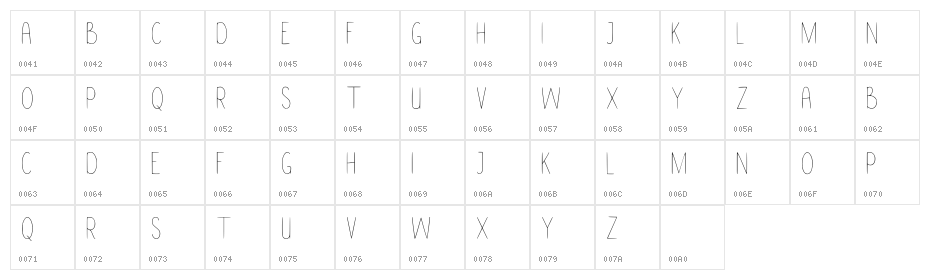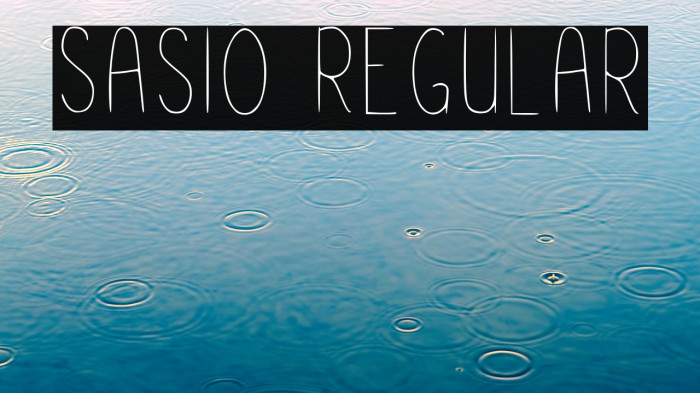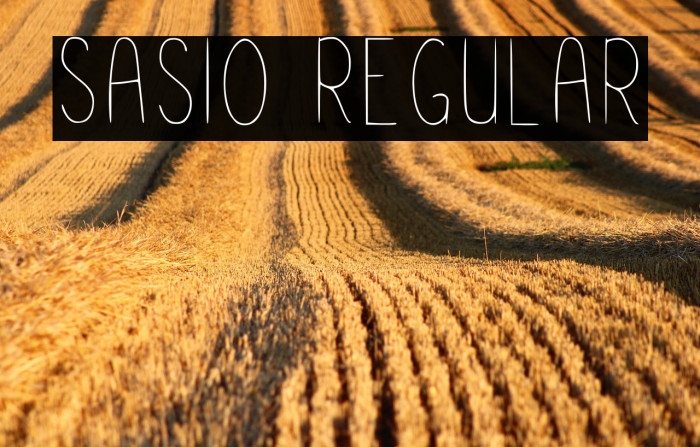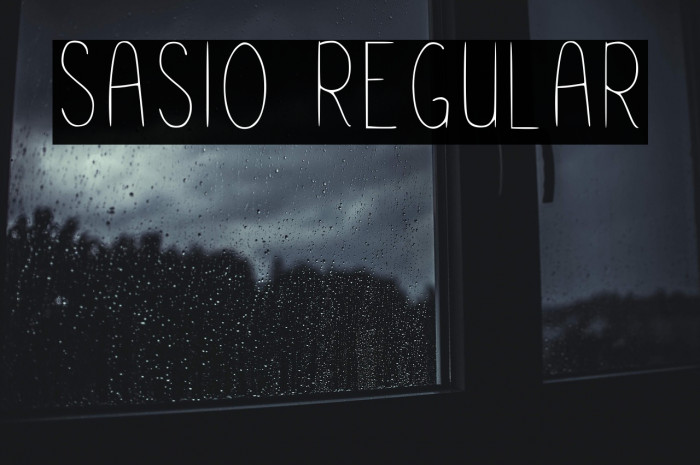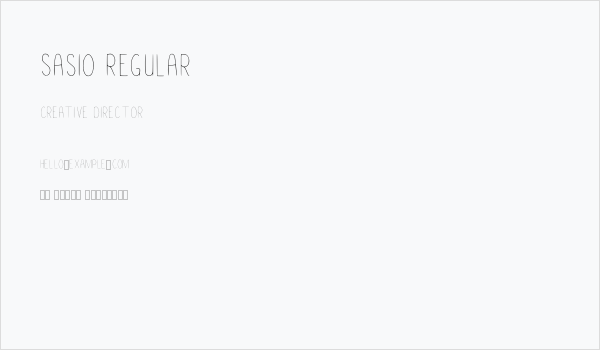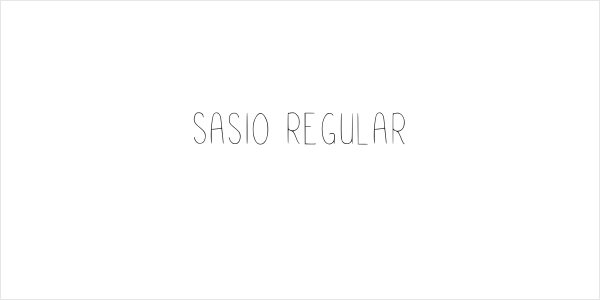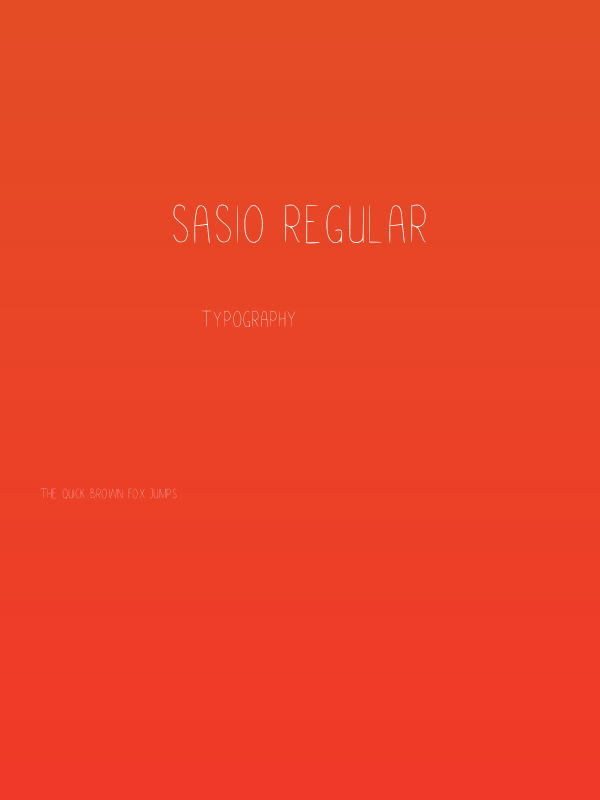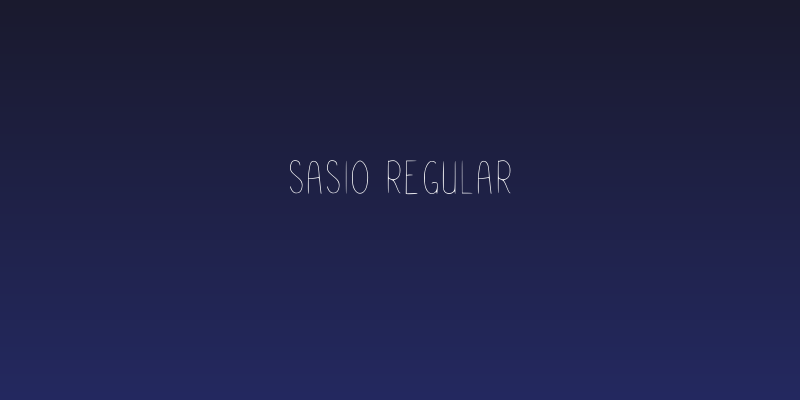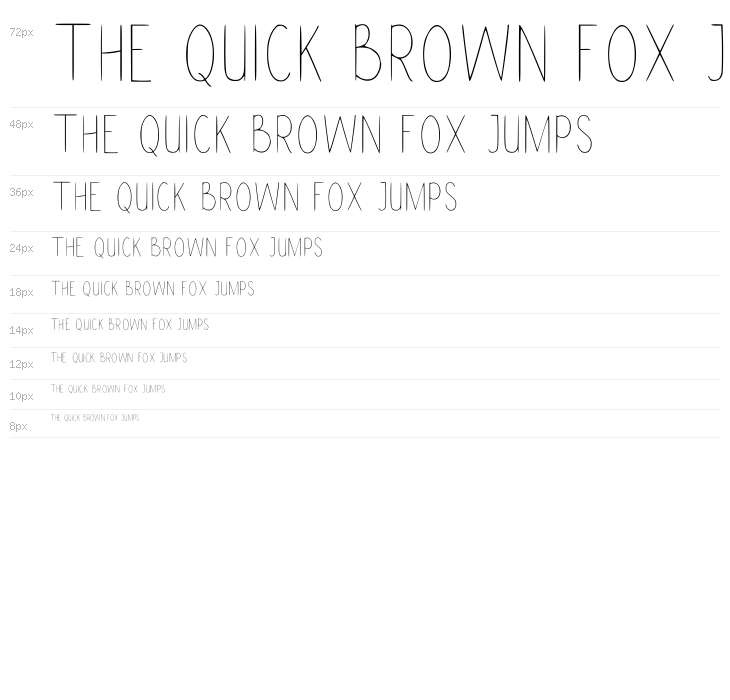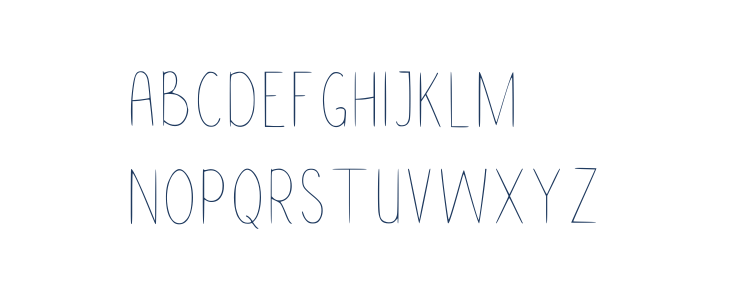
Sasio Regular Font
Sasio Regular Description
This font features a clean, minimalist design with tall, narrow letterforms. The strokes are thin and consistent, giving it a light and airy appearance. The characters are evenly spaced, contributing to a balanced and harmonious look. The uppercase letters are slightly elongated, while the lowercase letters maintain a uniform height, enhancing readability. This font exudes a modern and elegant vibe, making it suitable for a variety of design applications. Its simplicity and clarity make it versatile for both digital and print media, providing a sleek and professional aesthetic.
| Width | Condensed |
| Use Case | Headlines, Logos, Invitations |
| Proposed Projects | Ideal for modern branding, minimalist posters, elegant invitations, and stylish website headers. |